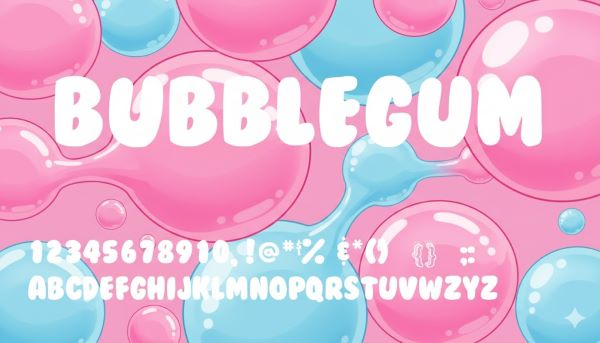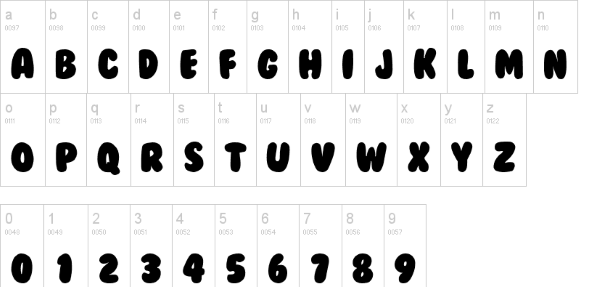
BubbleGum Font
BubbleGum Font is a playful bubble-style typeface with rounded, puffy letterforms and a fun personality. Its cheerful design makes it ideal for kids’ projects, logos, posters, stickers, and colorful graphics that need a bold, cute, and eye-catching look.